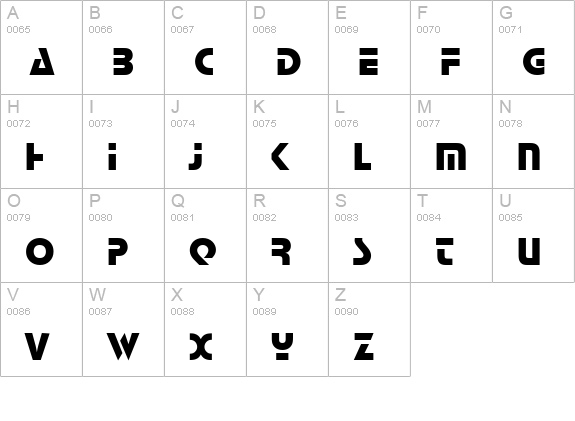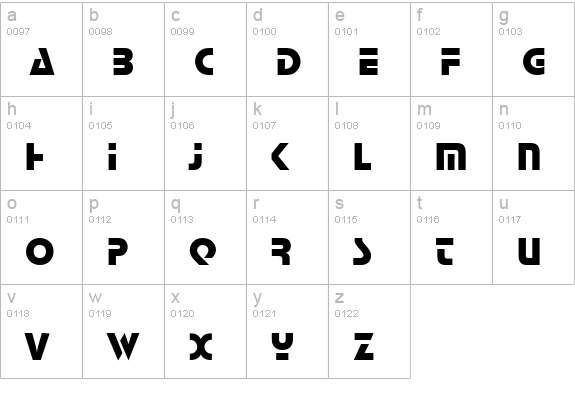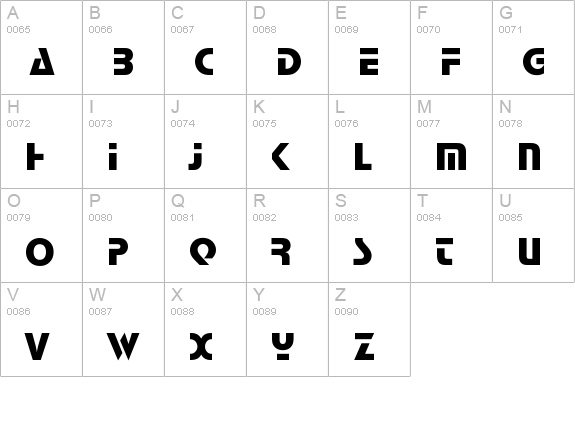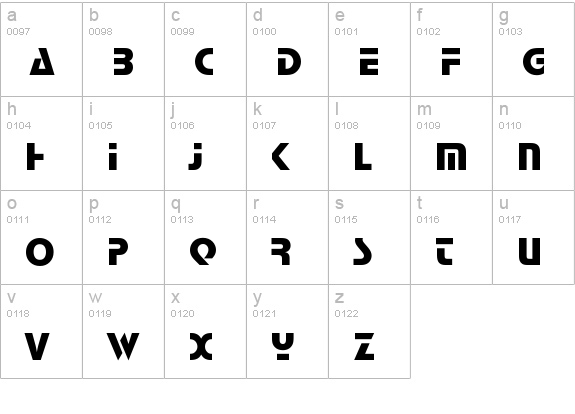
StopD Font Details
Introducing StopD font - a modern and stylish typeface that exudes confidence and sophistication. With its clean lines and bold letterforms, StopD is perfect for adding a touch of elegance to your designs. This versatile font is ideal for a wide range of projects, from branding to editorial design. What sets StopD font apart is not only its striking aesthetic but also its accessibility. This premium font is available for free download at FontsMarket.com, making it easy for designers and creatives to elevate their work without breaking the bank. Whether you're working on a poster, logo, or website, StopD font is sure to make a statement and leave a lasting impression. Don't miss out on the opportunity to enhance your designs with StopD font - download it today and take your projects to the next level!